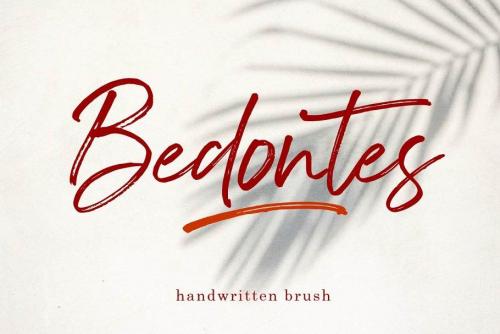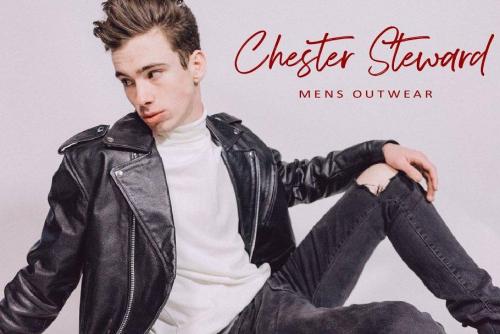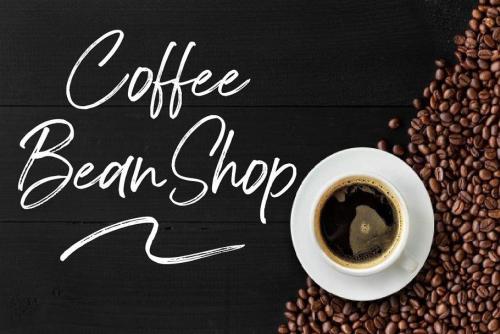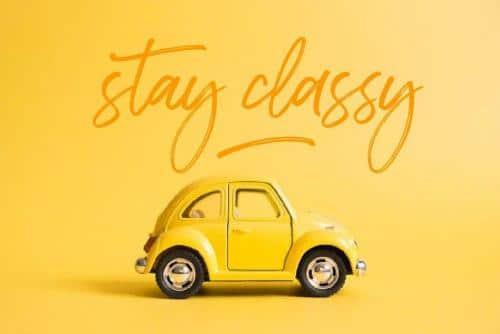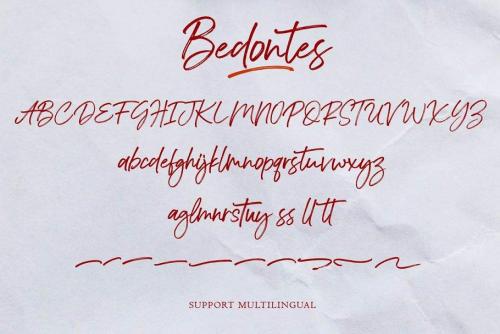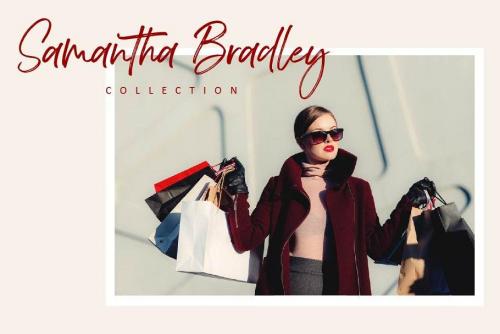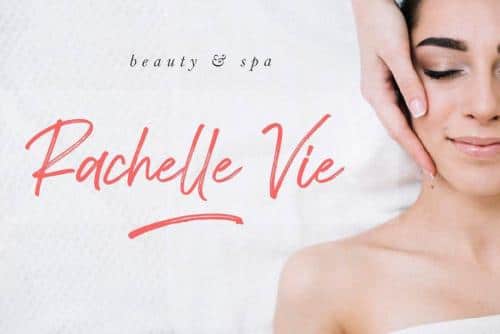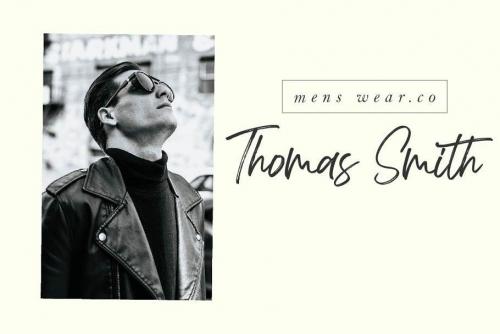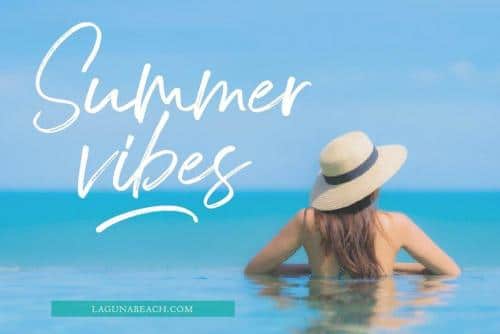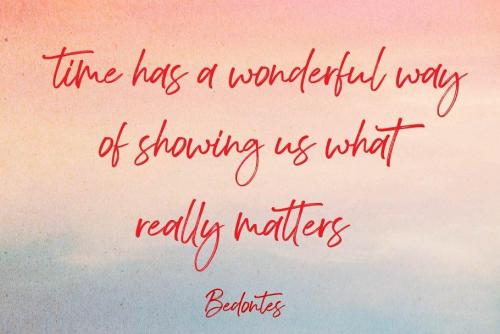
Bedontes Handwritten is a beautiful brush script created with brush pen to give a great contrast between thick and thin curves. Drawn, Scanned & Vectorized from paper to screen. I wanted to create an authentic brush typeface leaving the texture and imperfections the way they are, but perfect for any awesome project that need hand writing taste.
This is suitable for quotes, invitations, stationery, wedding design, logos, watermarks on photography, signatures, branding, advertisement, album covers, business cards, clothing, magazines, posters, and more! Also support multilingual.